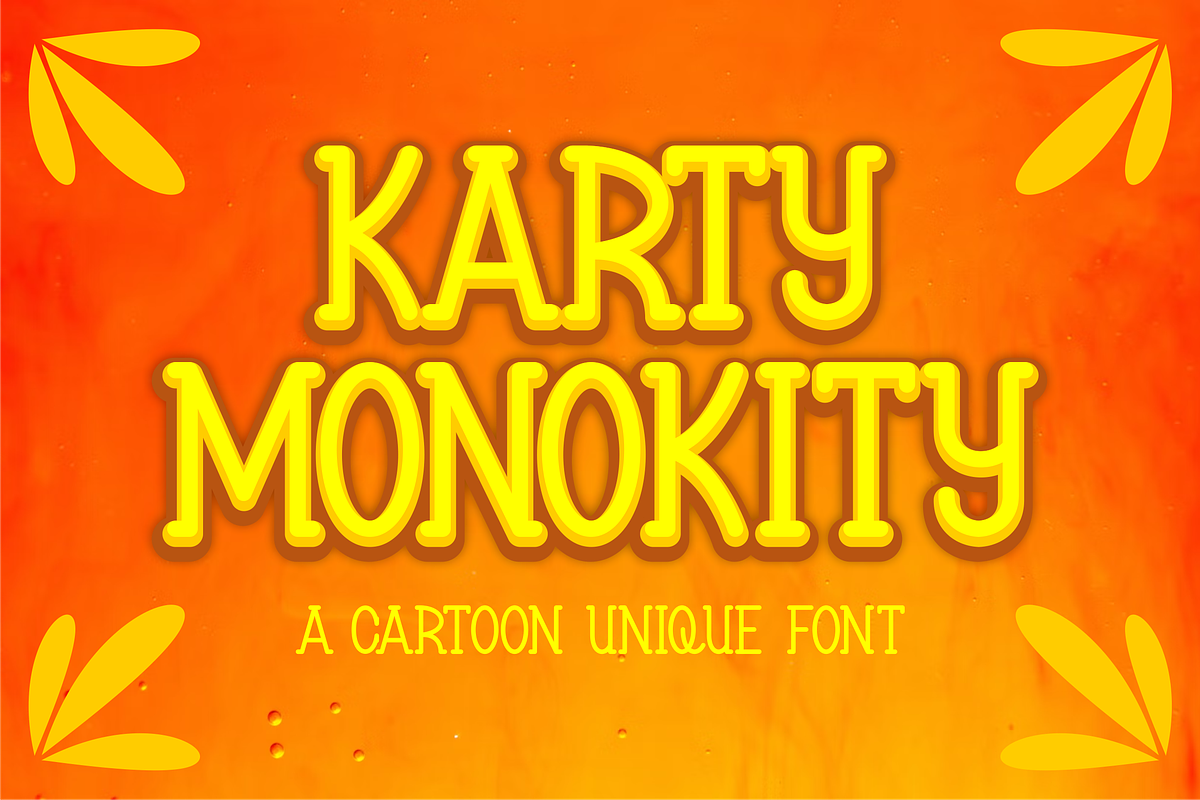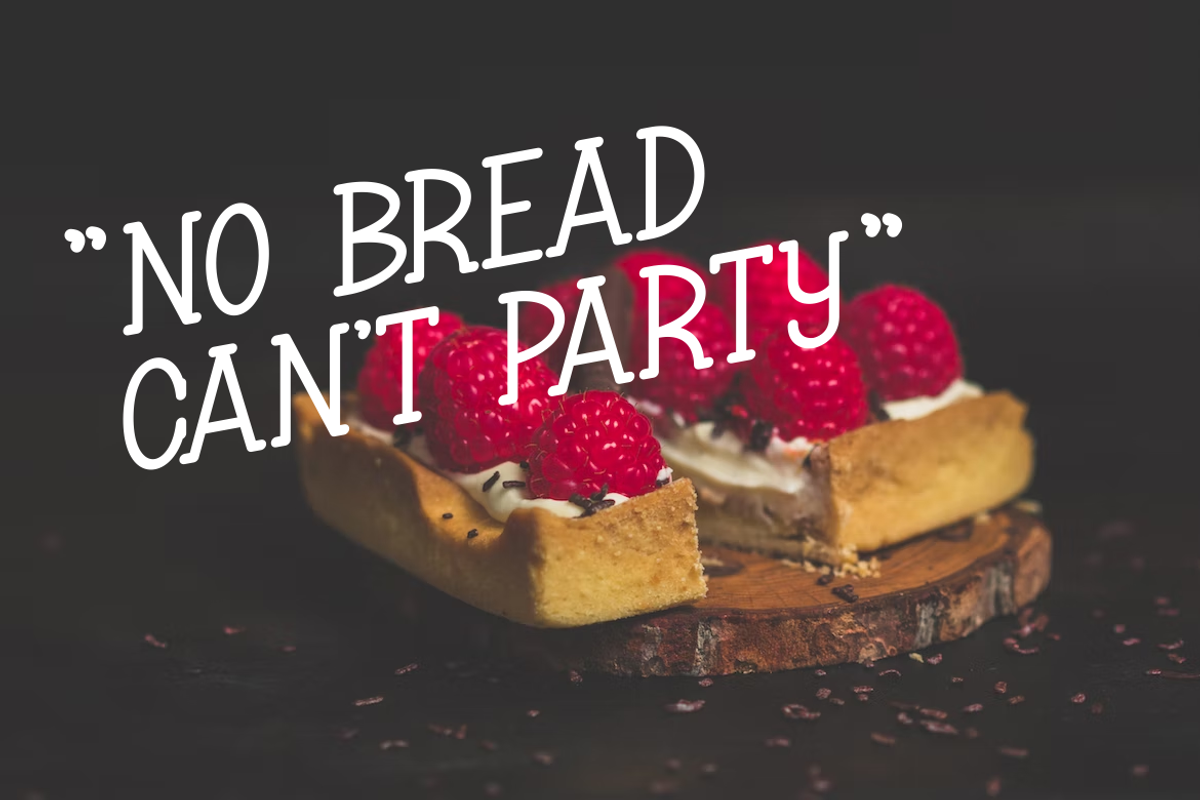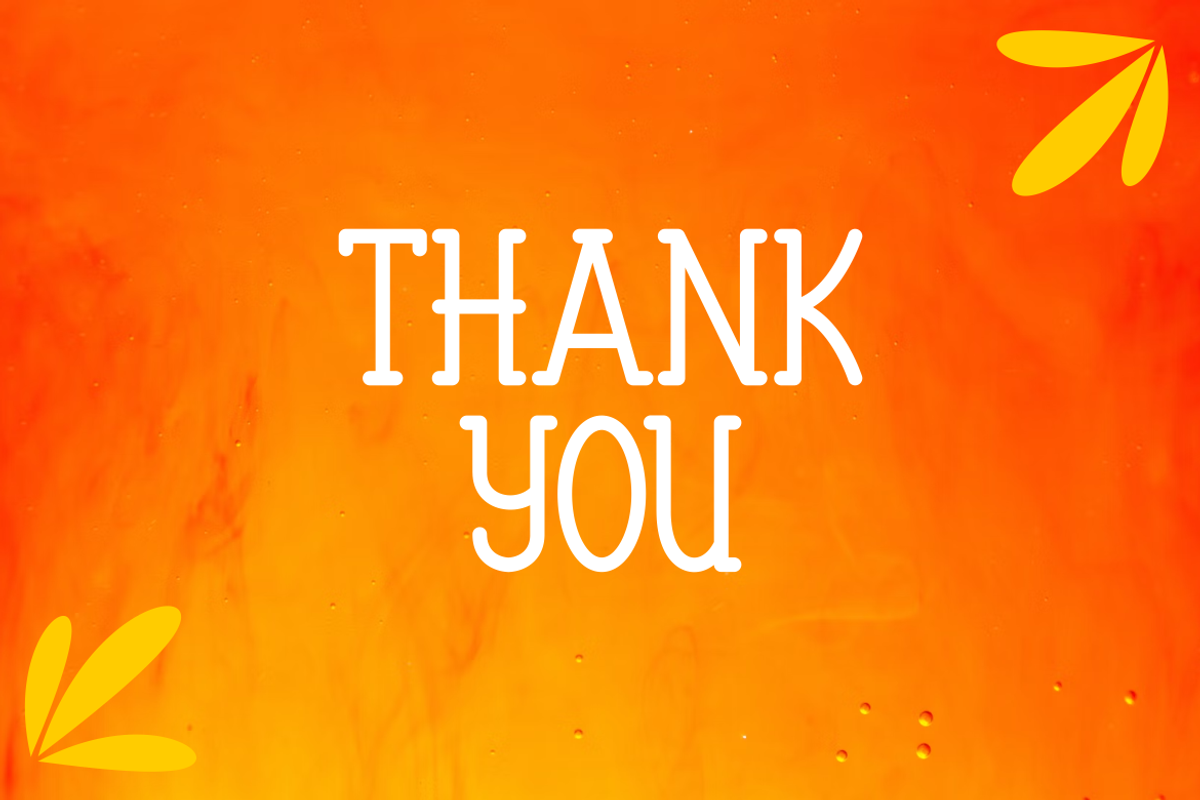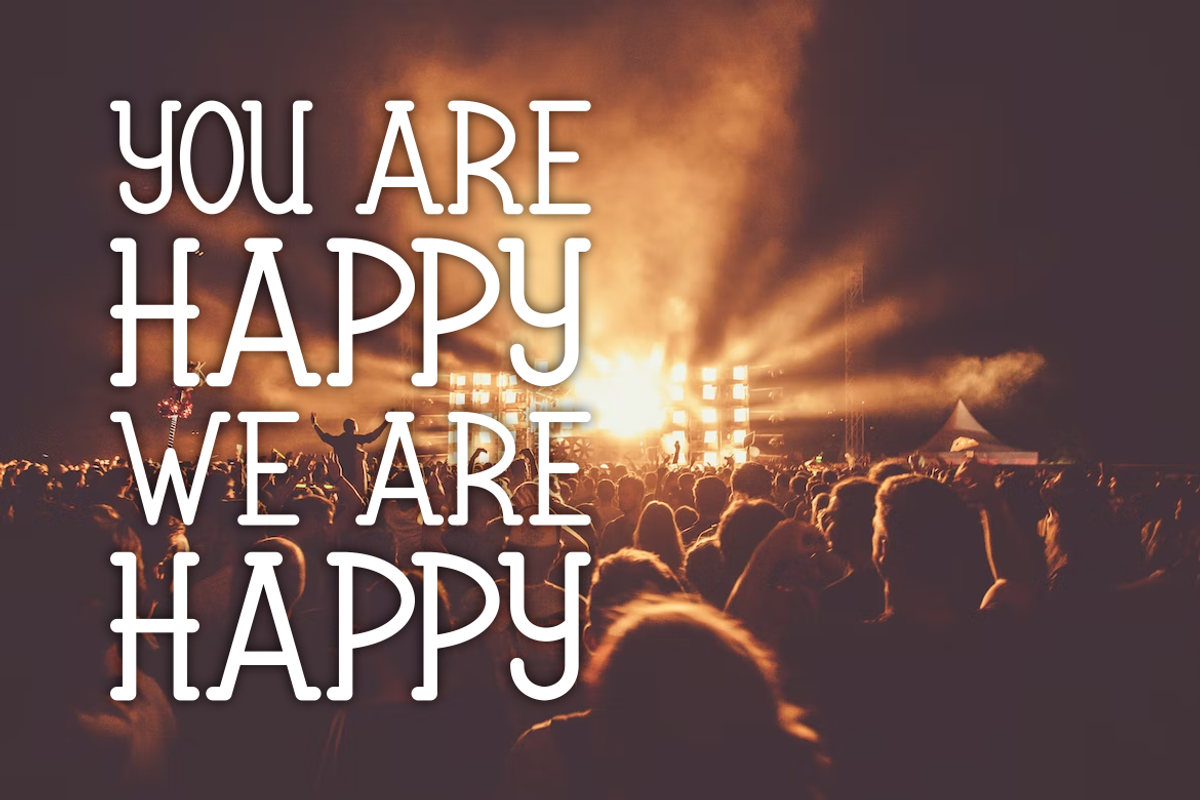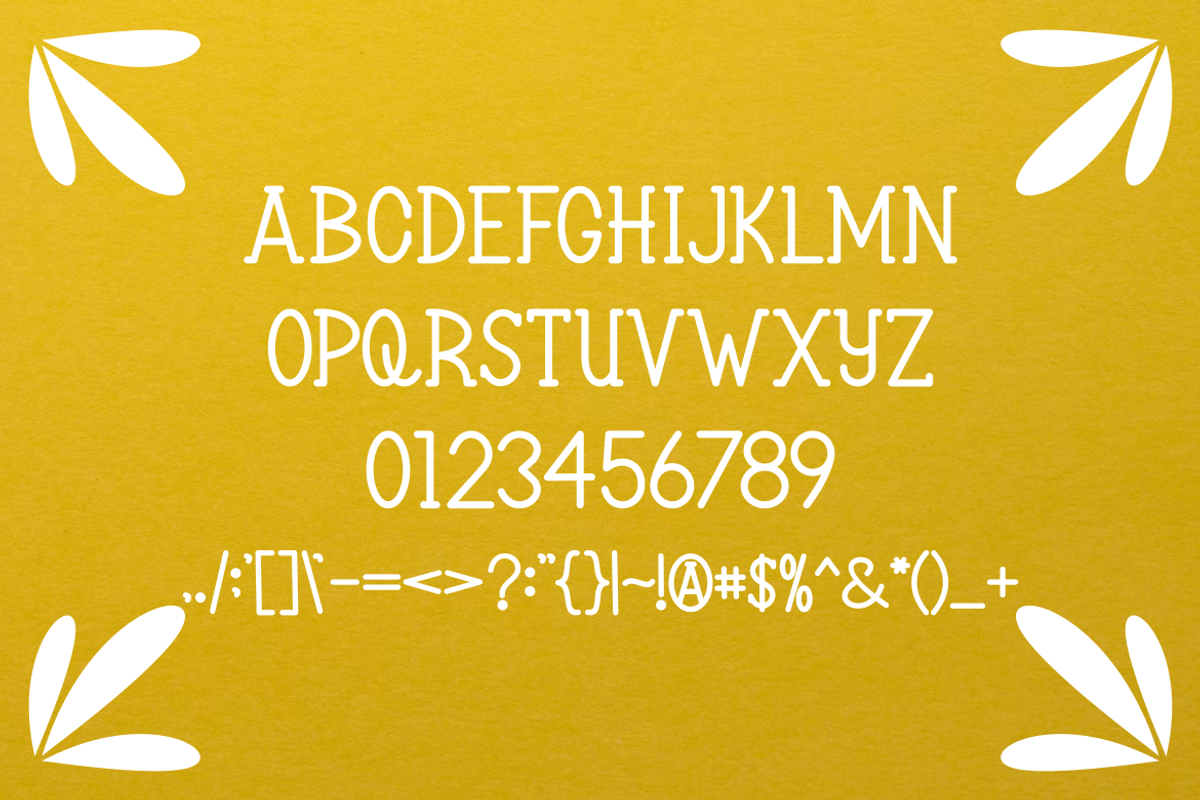
Karty Monokity Font
Introducing our new product Karty Monokity Font - Modern Font
Karty Monokity Font - Modern Font is a bold and authentic display font. The font is suitable for any branding project like logo, esport, and many more. outstanding in a wide range of contexts.